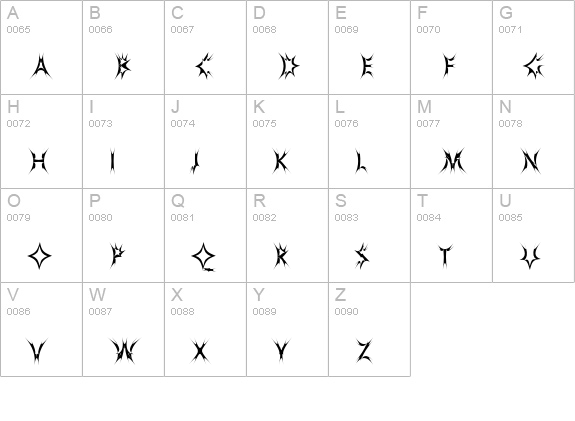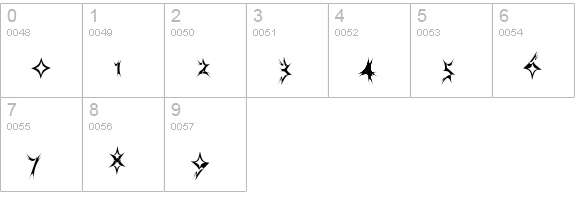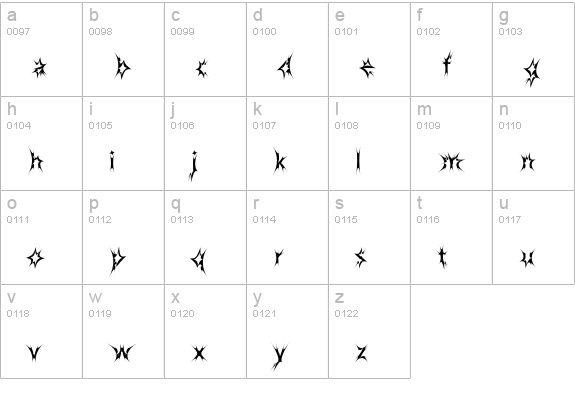
VeryUgly Font Details
VeryUgly font is a unique and eye-catching typeface that is sure to make a bold statement in any design project. With its distorted and exaggerated letterforms, this font is perfect for adding a touch of quirkiness and unconventional style to your designs. Despite its name, VeryUgly font is actually quite beautiful in its own unconventional way. Its irregular shapes and uneven strokes create a sense of rawness and imperfection, making it a standout choice for those who want to break away from traditional design norms. One of the best things about VeryUgly font is that it is absolutely free to download. You can easily get your hands on this font by visiting FontsMarket.com, a reputable online platform for font enthusiasts. Whether you're a professional designer or just someone looking to add a little flair to your personal projects, VeryUgly font is a great choice that won't break the bank. So why settle for ordinary and predictable fonts when you can embrace the unique and daring qualities of VeryUgly font? Download it today and unleash your creativity with this freely available gem from FontsMarket.com.